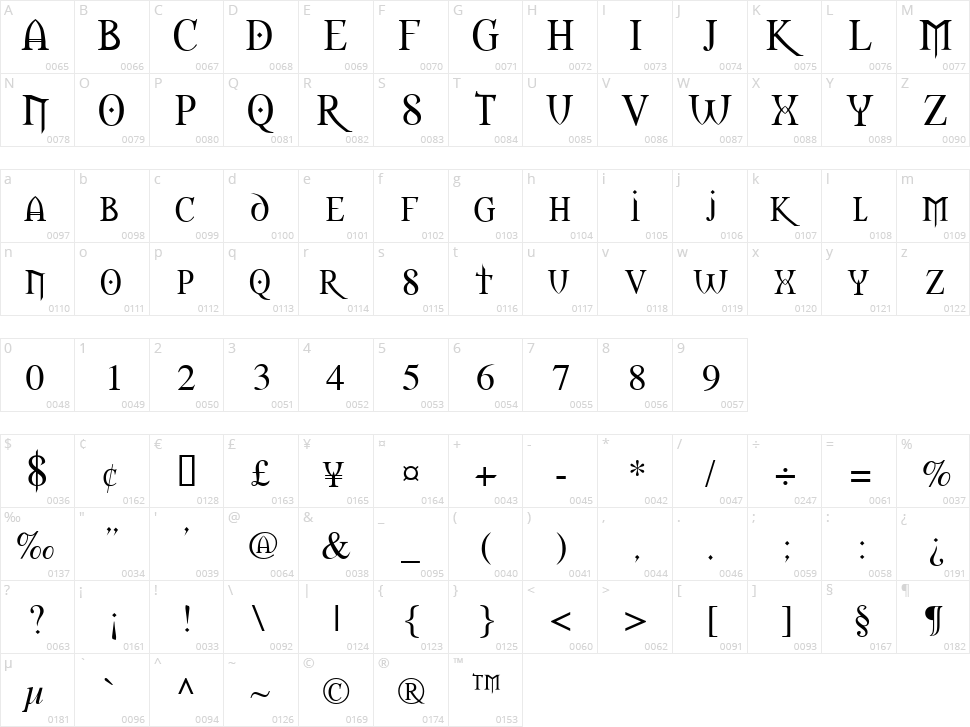
Morpheus
Kiwi Media, in their quest to beat the world into submission with fonts,
presents...
MORPHEUS
So, you ask, what's the deal with this one?
Beats me. I've agonized over a flourishing derscription of this one, and
the best I can come up with is "I've been reading too many Sandman comics."
Not that this font actually appears in any Sandman comics. But I was trying
to get a mood here. Something sort of neo-classical and ethereal, yet a bit
on the creepy side.
Whether or not I suceeded is another matter entirely.